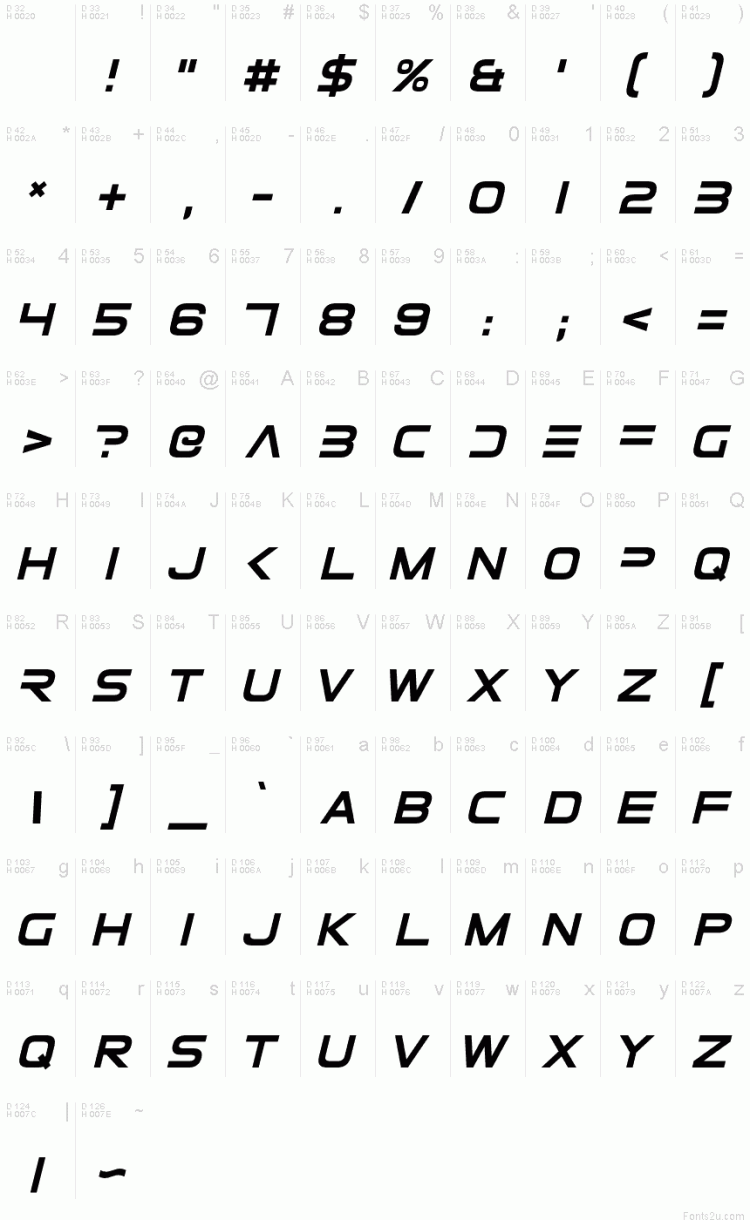
Great free futuristic font available on Fonts2u – Elemental End » Design You Trust – Design Blog and Community
Great new font – Elemental End by Zdenek Gromnica – available at Fonts2u. Get it below.